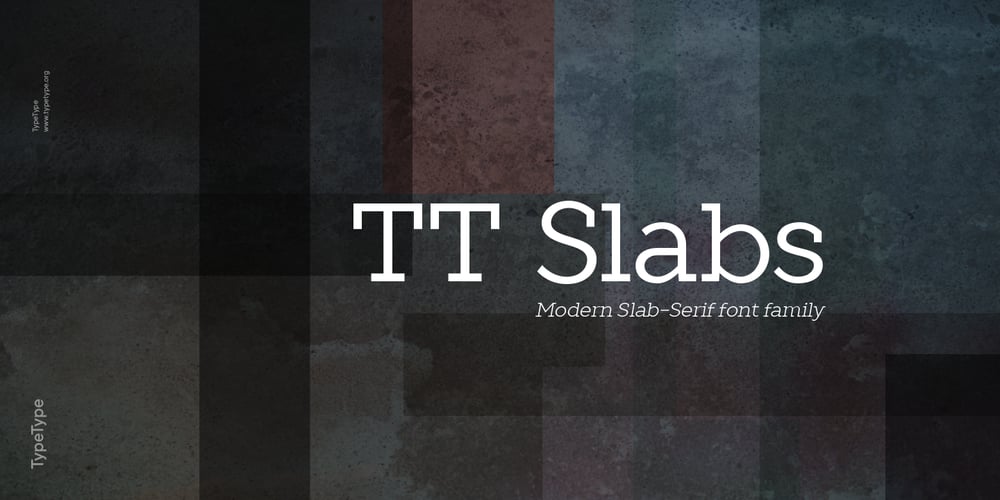
TT Slabs
TT Slabs font
TT Slabs Font Family was designed by Ivan Gladkikh, TypeType Team and published by TypeType. TT Slabs contains 10 styles and family package options. TT Slabs update 1.110 What’s new: Case Sensitive Forms Tabular Figures Fractions Numerators Denominators Superiors Scientific Inferiors TT Slabs useful links:Customization options | Instagram | Facebook | WebsiteAbout TT Slabs: World needs a beautiful, simple and high-quality fonts. We need simple and geometric fonts. Slab is a form of serifs, which gave its name to the font family. If you are looking for a versatile font with wide proportions for your projects—TT Slabs will suit you perfectly. Optimized for the websites, mobile applications, and printing materials. We offer you to have a look at this font’s narrow version—TT Slabs Condensed.TT Slabs language support: Acehnese, Afar, Albanian, Alsatian, Aragonese, Arumanian, Asu, Aymara, Banjar, Basque, Belarusian (cyr), Bemba, Bena, Betawi, Bislama, Boholano, Bosnian (cyr), Bosnian (lat), Breton, Bulgarian (cyr), Cebuano, Chamorro, Chiga, Colognian, Cornish, Corsican, Cree, Croatian, Czech, Danish, Embu, English, Erzya, Estonian, Faroese, Fijian, Filipino, Finnish, French, Friulian, Gaelic, Gagauz (lat), Galician, German, Gusii, Haitian Creole, Hawaiian, Hiri Motu, Hungarian, Icelandic, Ilocano, Indonesian, Innu-aimun, Interlingua, Irish, Italian, Javanese, Judaeo-Spanish, Kalenjin, Karachay-Balkar (lat), Karaim (lat), Karakalpak (lat), Kashubian, Khasi, Khvarshi, Kinyarwanda, Kirundi, Kongo, Kumyk, Kurdish (lat), Ladin, Latvian, Laz, Leonese, Lithuanian, Luganda, Luo, Luxembourgish, Luyia, Macedonian, Machame, Makhuwa-Meetto, Makonde, Malay, Manx, Maori, Mauritian Creole, Minangkabau, Montenegrin (lat), Mordvin-moksha, Morisyen, Nahuatl, Nauruan, Ndebele, Nias, Nogai, Norwegian, Nyankole, Occitan, Oromo, Palauan, Polish, Portuguese, Quechua, Rheto-Romance, Rohingya, Romansh, Rombo, Rundi, Russian, Rusyn, Rwa, Salar, Samburu, Samoan, Sango, Sangu, Scots, Sena, Serbian (cyr), Serbian (lat), Seychellois Creole, Shambala, Shona, Slovak, Slovenian, Soga, Somali, Sorbian, Sotho, Spanish, Sundanese, Swahili, Swazi, Swedish, Swiss German, Tagalog, Tahitian, Taita, Tatar, Tetum, Tok Pisin, Tongan, Tsonga, Tswana, Turkish, Turkmen (lat), Ukrainian, Uyghur, Vepsian, Volapük, Võro, Vunjo, Xhosa, Zaza, Zulu.